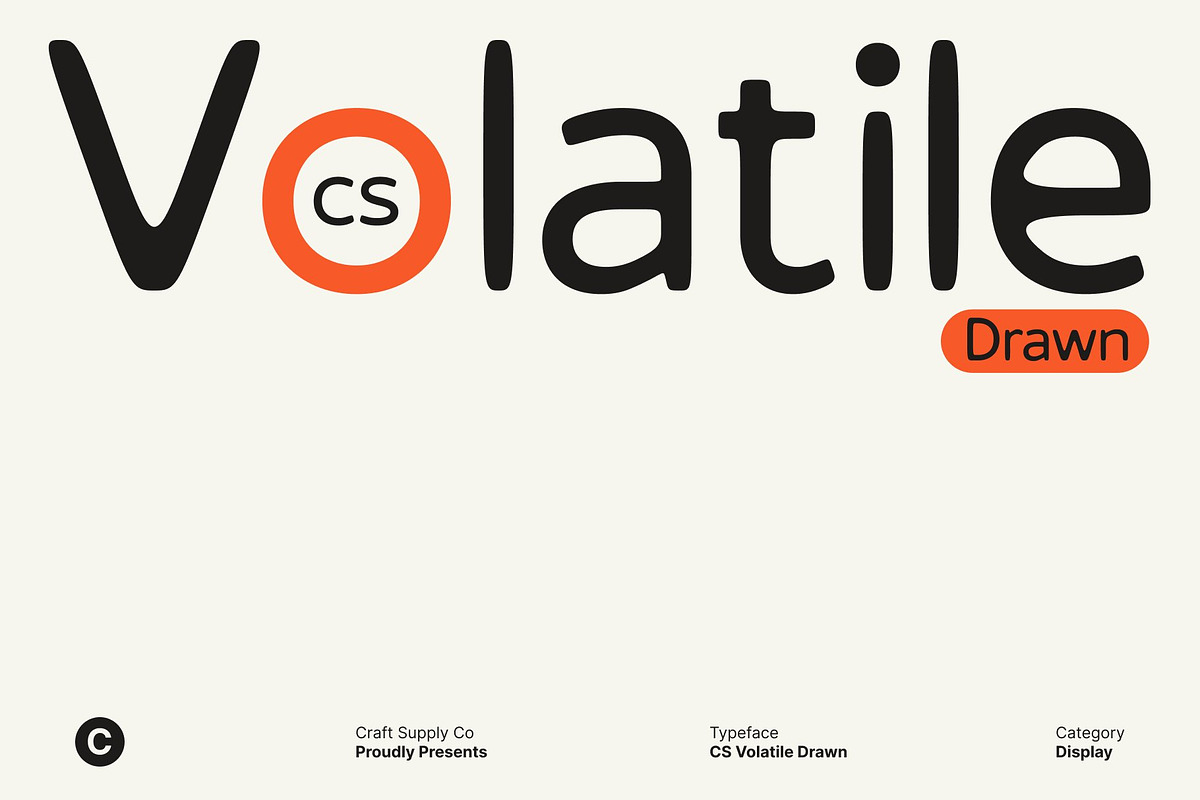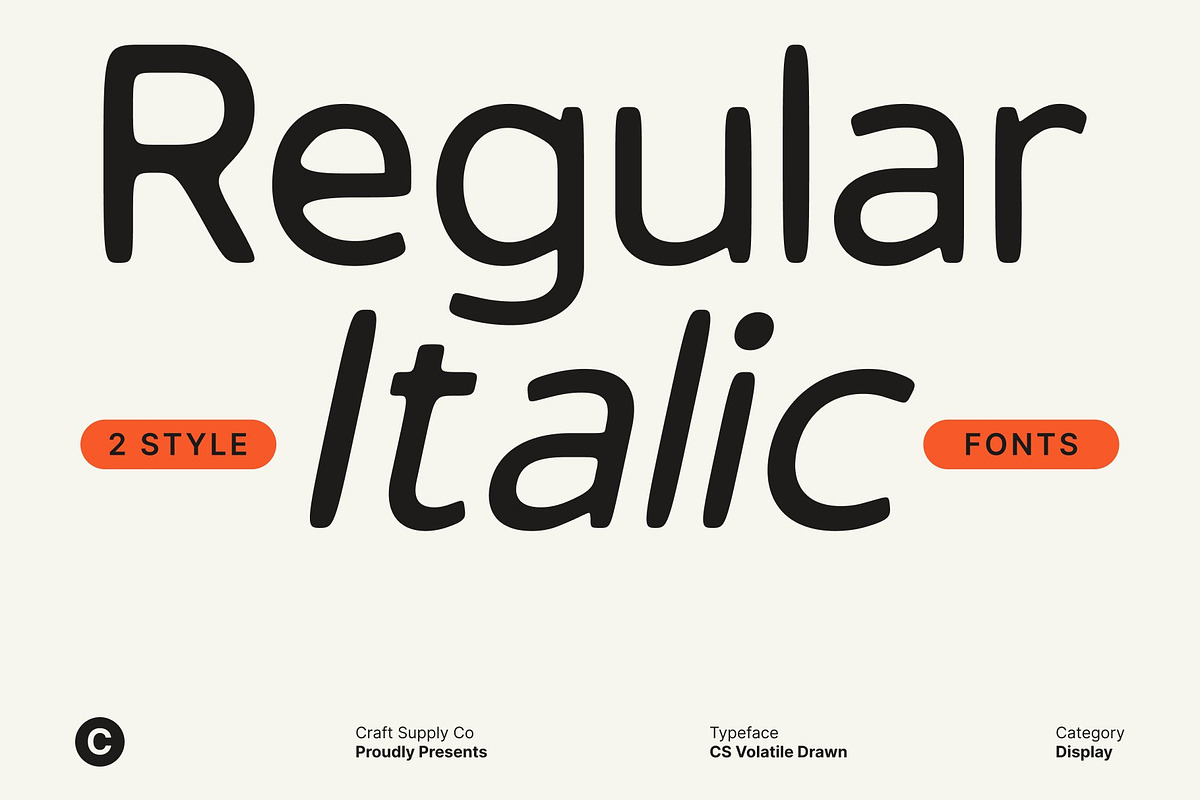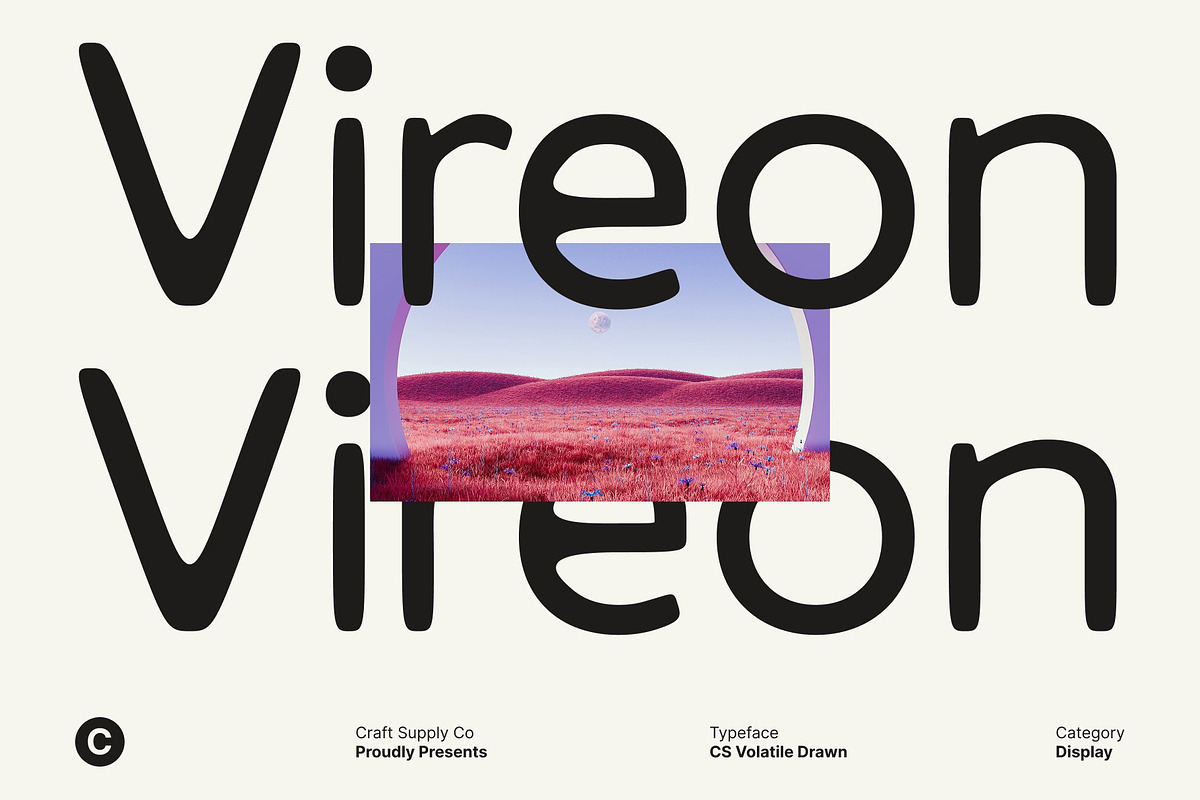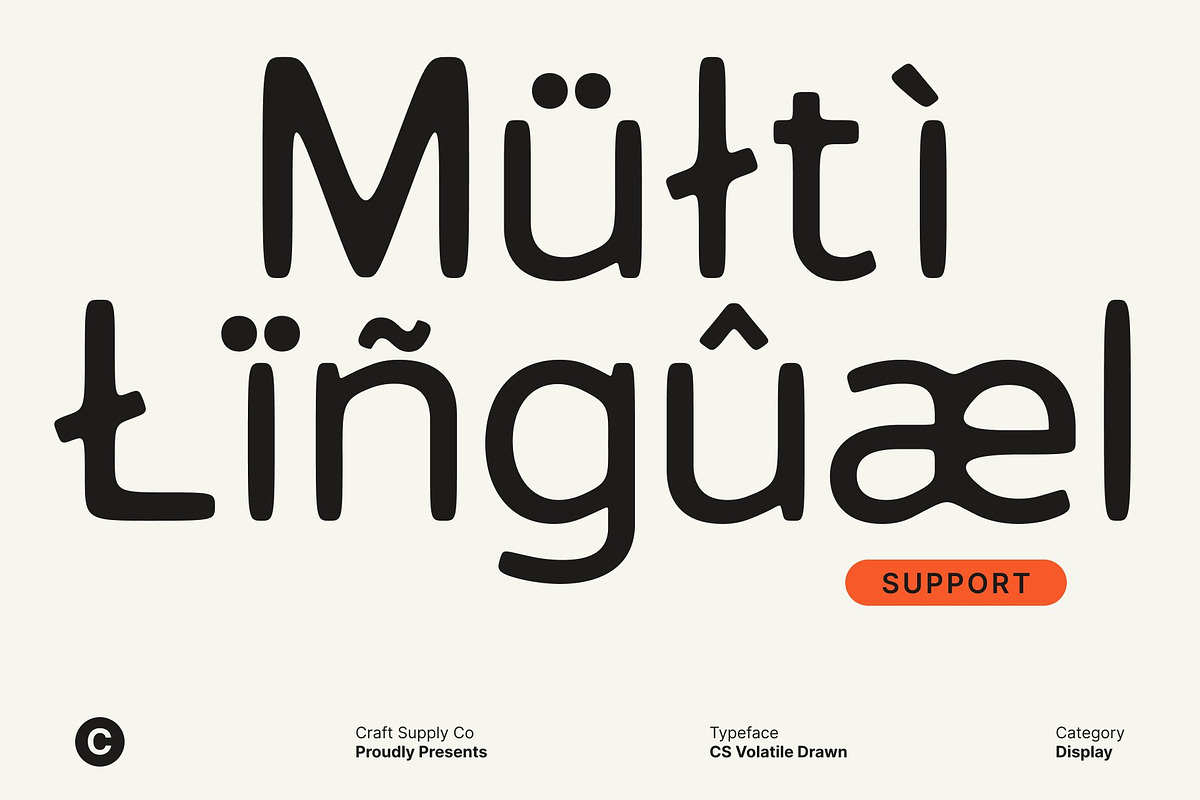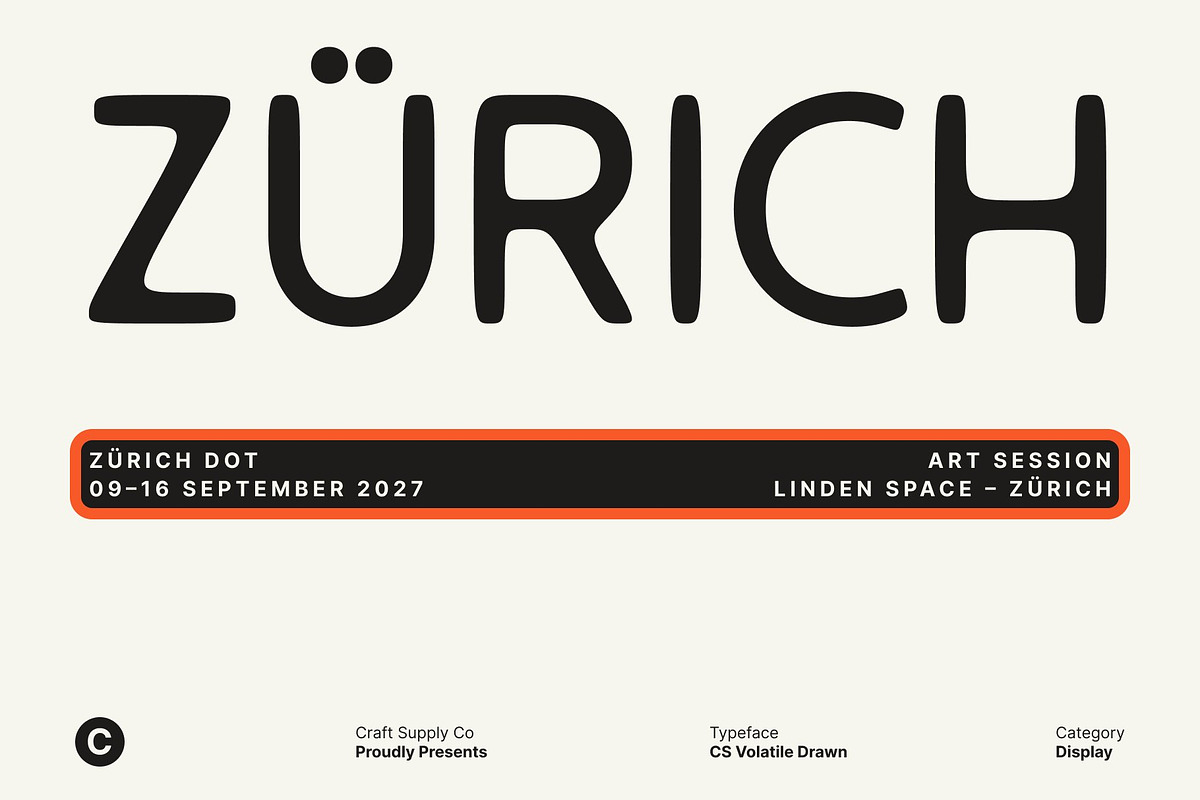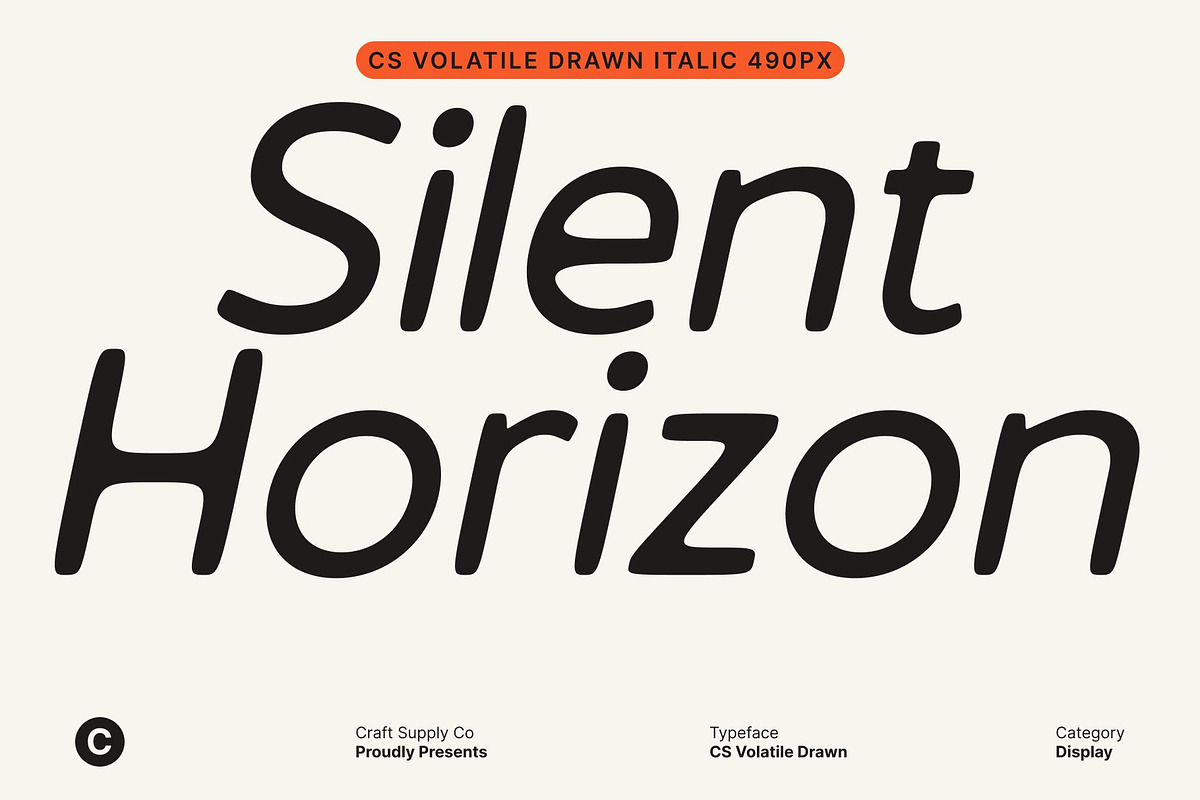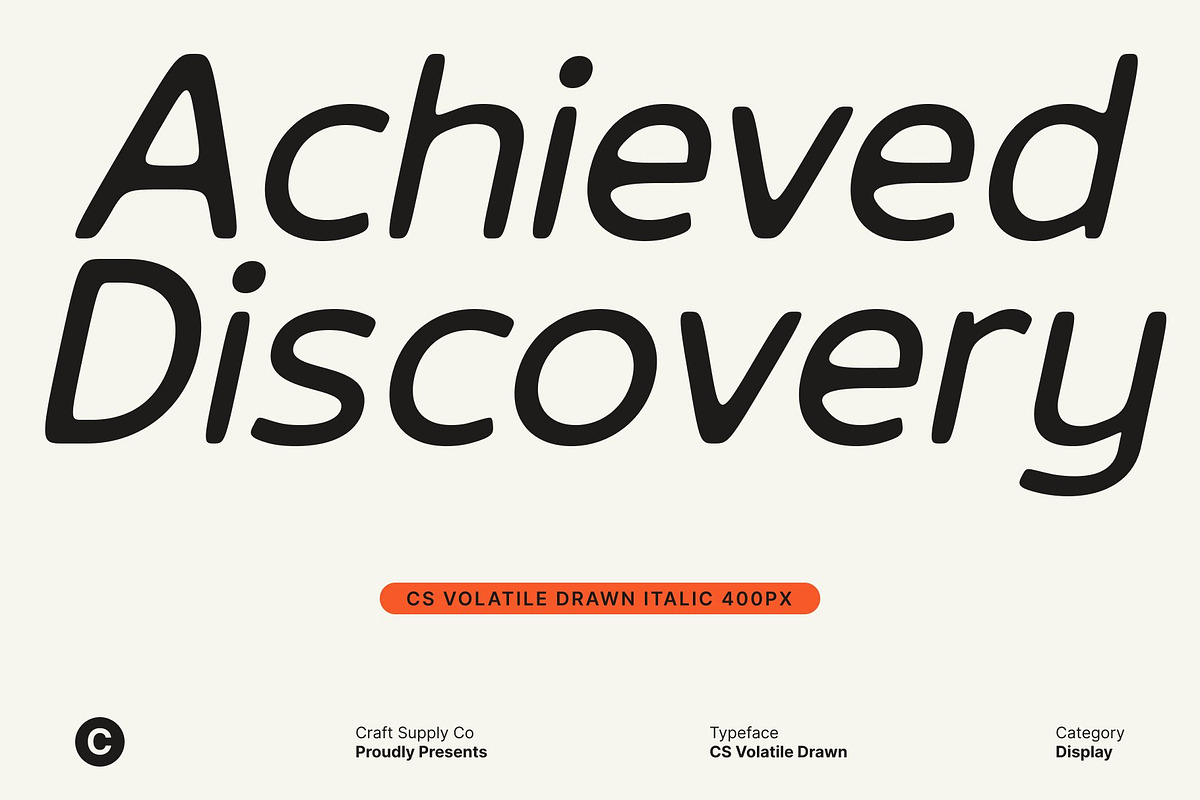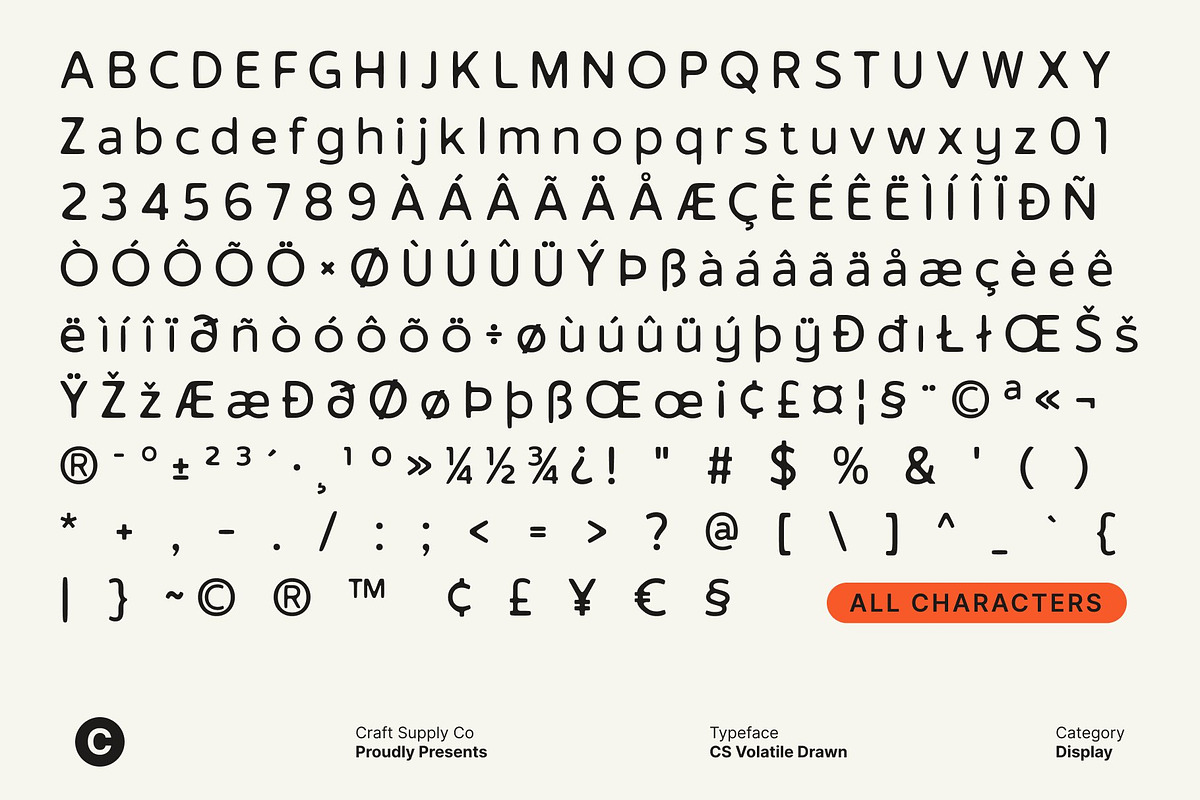
CS Volatile Drawn
CS Volatile Drawn – Contemporary Sans Serif with Artistic Texture
Modern Geometry Meets Hand-Drawn Character This is a contemporary sans serif font that blends clean geometric construction with a distinctive drawn effect, resulting in a typeface that feels both modern and human. The geometric base delivers structure and clarity, while the textured strokes add personality and warmth.
Relaxed Professionalism for Modern Simplicity The hand-drawn effect softens the rigidity often found in geometric sans serif fonts, giving this font a casual sophistication that fits seamlessly into modern design aesthetics. Its smooth contours and subtle irregularities introduce an organic dimension that enhances visual interest without compromising legibility.
Versatile for Swiss, Casual, and Contemporary Layouts Designed with versatility in mind, this font adapts easily to a wide range of applications. Its geometric structure aligns well with Swiss-style layouts and contemporary design systems, while its drawn texture brings a friendly, approachable quality suitable for casual branding, social media graphics, lifestyle products, and editorial layouts.
A Distinctive Choice for Designers Seeking Subtle Uniqueness This font offers a unique alternative to traditional minimalist fonts by introducing handcrafted nuance within a clean, modern framework. It is the perfect choice for designers who want to maintain professionalism while adding a touch of authenticity and artistic flair. Use it to elevate logos, posters, packaging, website headers, and any creative project that calls for a balance of precision and personality.
- CS Volatile Drawn Regular
- CS Volatile Drawn Italic